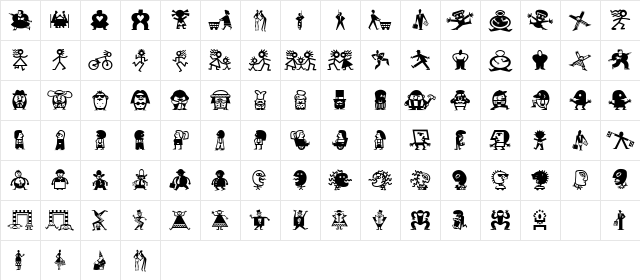
MiniPics LilFolks Free Font
MiniPics LilFolks
Style: LilFolks
Complete MiniPics LilFolks glyph index. Displaying only characters natively supported by MiniPics LilFolks font.
Design Context for MiniPics
MiniPics is a composed and adaptable typeface that performs quietly and consistently across a wide range of design contexts.